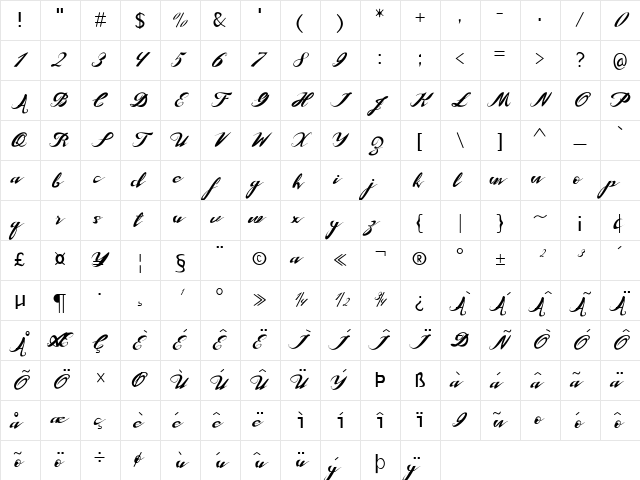
Tranformer Regular Free Font
Tranformer Regular
Foundry: sinfa
Designer: m.akbar
Design Context for Tranformer
Tranformer is a composed and adaptable typeface that performs quietly and consistently across a wide range of design contexts.